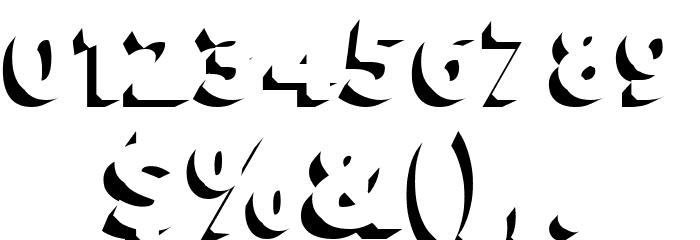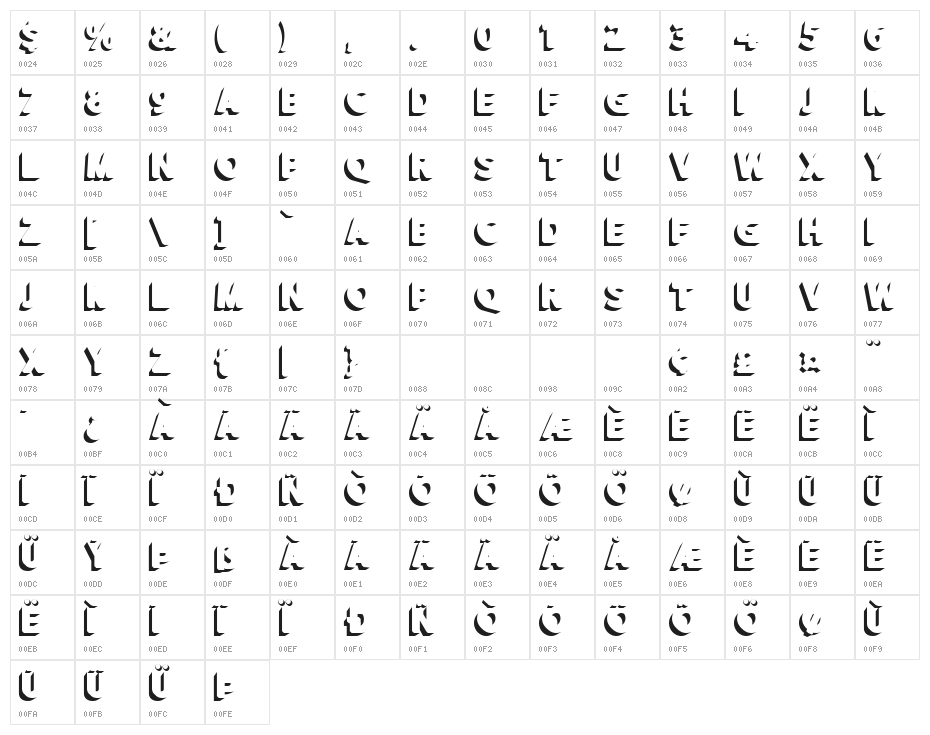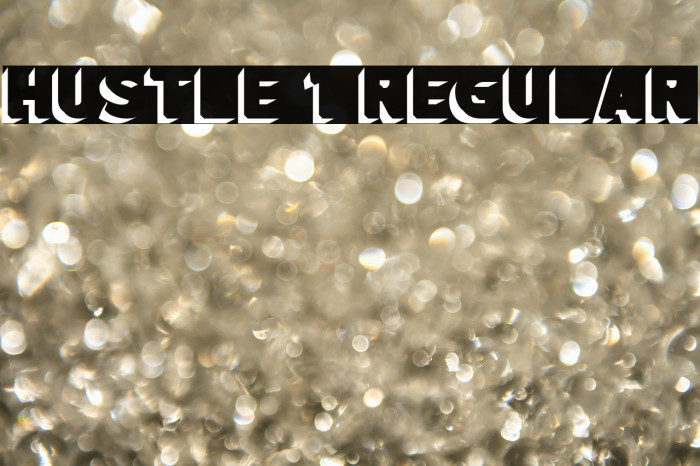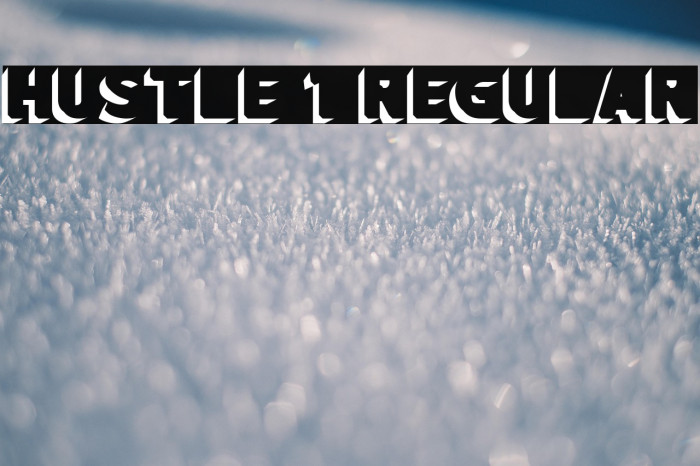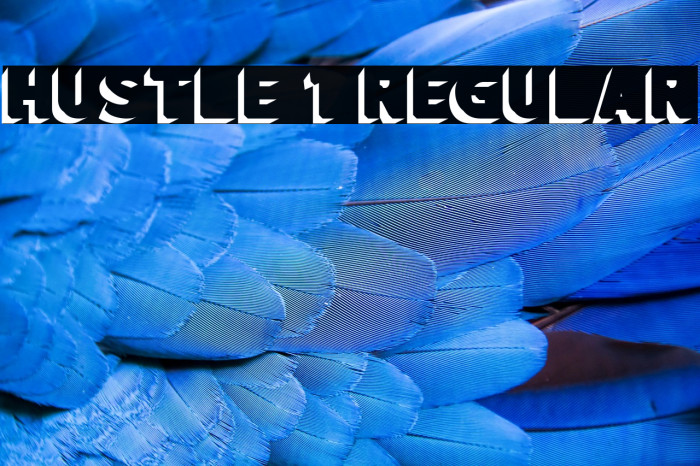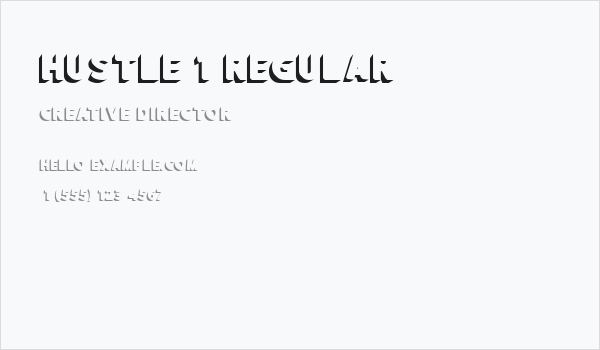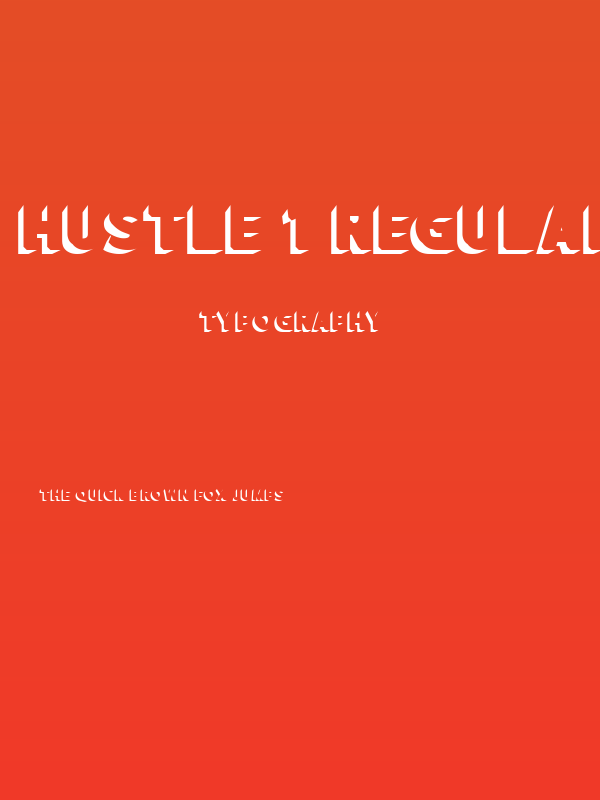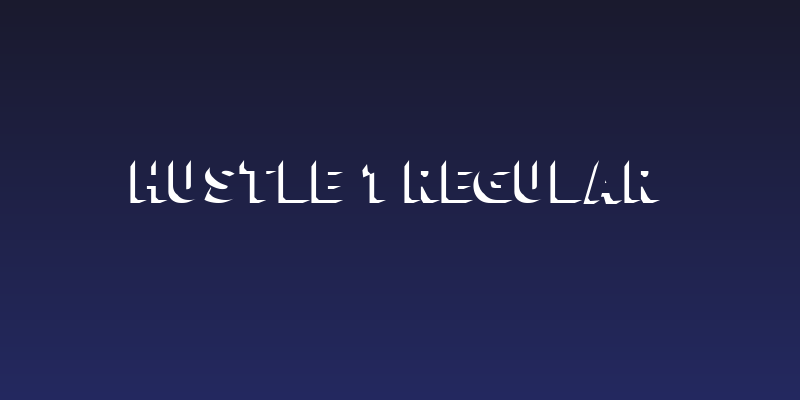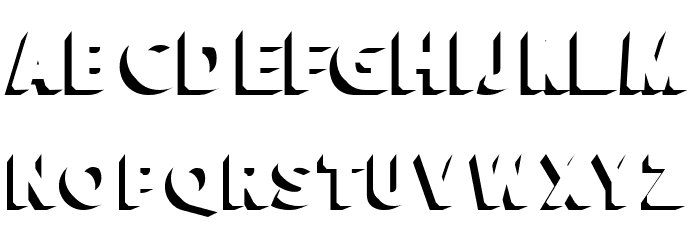
hustle 1 Regular Font
hustle 1 Regular Description
This font features a bold and dynamic style with a three-dimensional effect, giving it a sense of depth and movement. The characters are sharply defined with angular cuts and shadows that create a striking visual impact. The uppercase and lowercase letters maintain a consistent design, while the numerals and special characters follow the same bold aesthetic. This font is designed to stand out, making it ideal for attention-grabbing headlines or logos. Its unique style combines modern and decorative elements, making it versatile for various creative projects.
| Proposed Projects | Ideal for branding, posters, headlines, and any project requiring a bold, eye-catching typeface. |